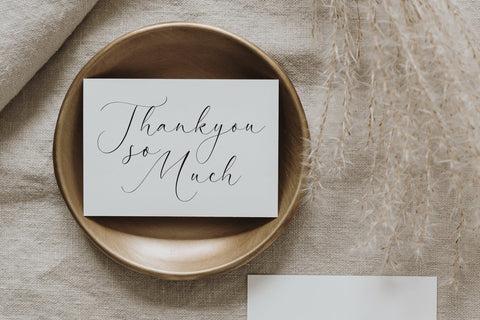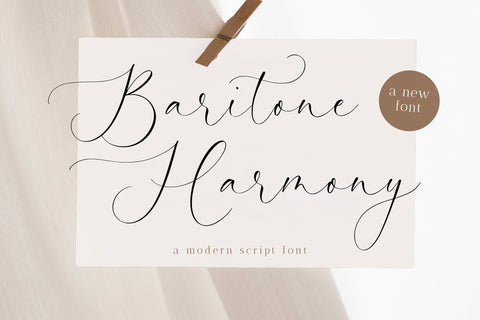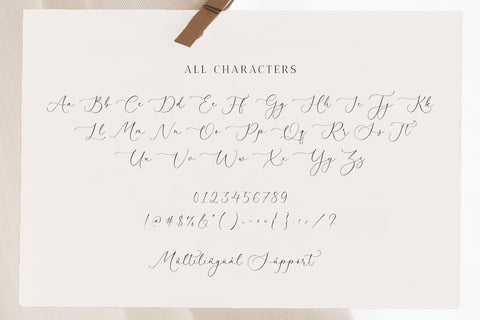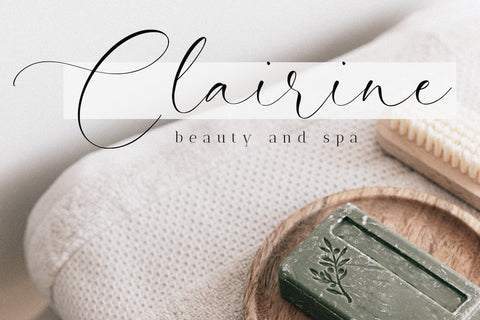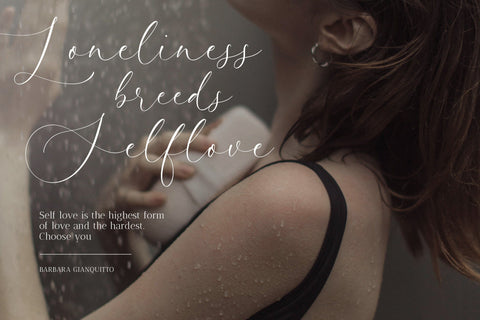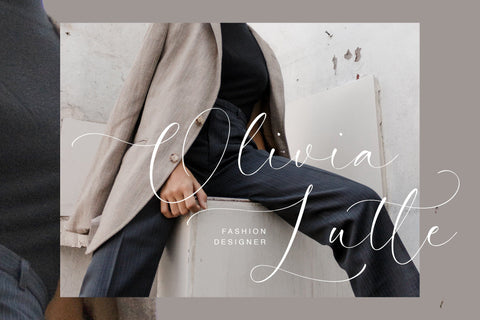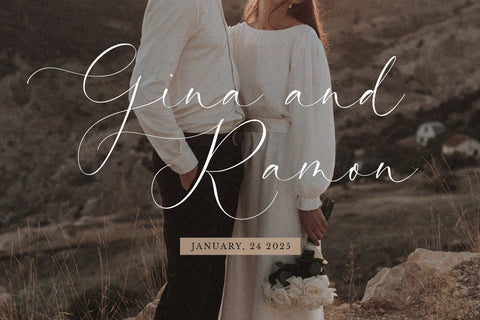
Baritone Harmony - Modern Script font
Proudly Present Baritone Harmony
Baritone Harmony is a Modern script font that is modern and fresh, and will bring a warm and inviting feel to your business. Take advantage of the fonts and experience the magic for yourself.
Baritone Harmony is perfect for product packaging, branding project, megazine, social media, wedding, or just used to express words above the background.
Baritone Harmony also multilingual support.
Baritone Harmony Font Features premium :
-Full Set of standard alphabet and punctuation
- Ligature
- stylistic Alternate
- Beginning swash
- Ending swash